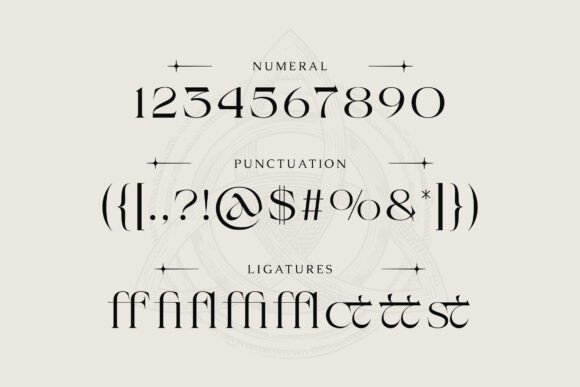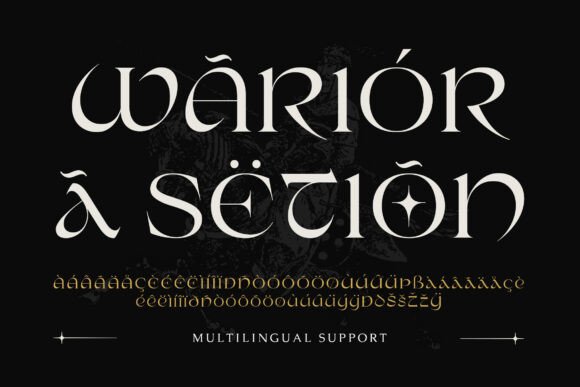
Madrock Font
About the Madrock Font
Get ready to be inspired by Madrock Font, a fresh and dynamic typeface for modern creators. Madrock is an elegant fantasy serif font with a graceful, otherworldly charm. Its delicately crafted curves and enchanting details bring a magical aesthetic to your design, blending classic serif structure with a mystical, storytelling vibe. Perfect for book covers, fantasy-themed posters, logo designs, branding for beauty or fashion products, wedding invitations, packaging, social media graphics, and any project that needs a touch of elegance with a fantasy twist.
Madrock’s elegant, yet slightly whimsical personality makes it ideal for branding projects requiring a touch of sophistication and fantasy, such as high-end cosmetics, boutique fashion, or magical-themed businesses. It excels in headlines, short text blocks, and logo design, adding a touch of mystique. However, its intricate details make it less suitable for body text or UI elements where readability is paramount.
Consider pairing Madrock with a clean sans-serif like Lato or Montserrat for a balanced contrast, or a playful script font like Great Vibes for a more whimsical feel. For a more classic approach, a neutral serif like Garamond or a geometric sans-serif like Futura would provide a complementary level of structure.
The font’s overall aesthetic leans towards elegance with a hint of fantasy; it’s best suited for projects aiming for a sophisticated yet slightly magical impression. Avoid using it where a modern, minimalist, or highly functional design aesthetic is prioritized.
Madrock Font Usage Examples
Madrock Font Example